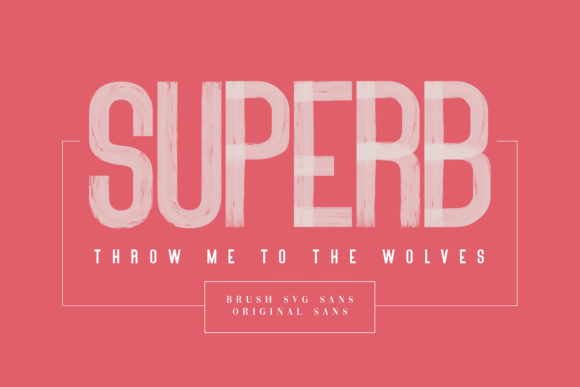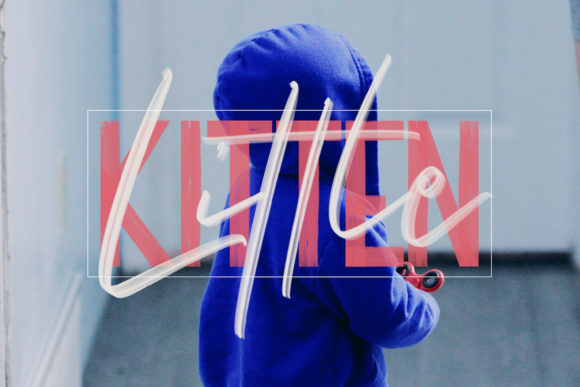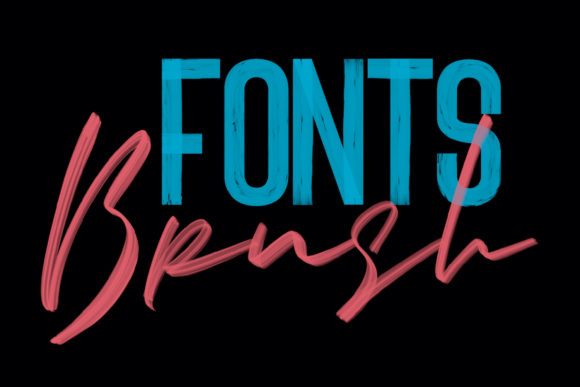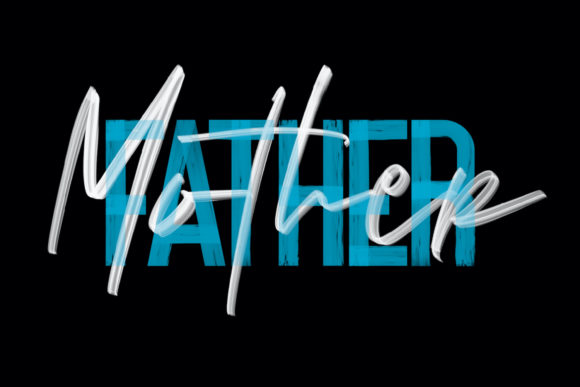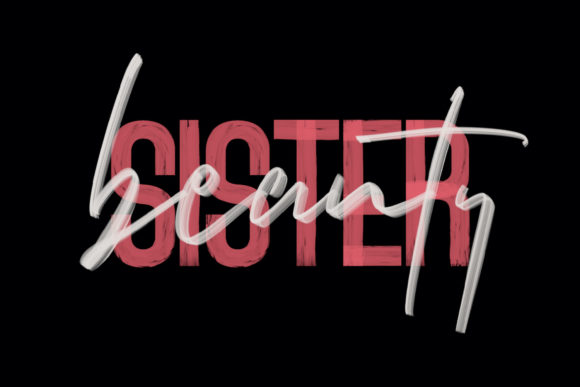
Introducing Brushelly Brush Font: Elevate Your Designs with a Touch of Elegance
In the world of typography, fonts play a crucial role in conveying the tone and personality of a design. For designers and crafters, finding the perfect font can be a daunting task. However, if you’re looking for a versatile and elegant solution, look no further than Brushelly Brush Font. This stunning duo font, consisting of sans and handwritten styles, is created with the help of a brush pen, giving it a unique and organic feel.
The Versatility of Brushelly Brush Font
Brushelly Brush Font is an incredibly versatile font that can be used for a wide range of design projects. Whether you’re working on a logo, branding materials, social media graphics, or even a website, this font is sure to elevate your creations. Its elegant and sophisticated feel makes it perfect for designs that require a touch of refinement, such as:
- Websites and landing pages
- Print materials, such as brochures and flyers
The Unique Characteristics of Brushelly Brush Font
So, what sets Brushelly Brush Font apart from other fonts? Here are a few unique characteristics that make it a standout:
- Brush Pen Effect: The font is created with the help of a brush pen, giving it a distinctive, hand-crafted feel.
- Duo Font: The font comes in two styles: sans and handwritten, allowing you to mix and match to create visually appealing combinations.
- Elegant and Sophisticated: The font has an undeniable elegance and sophistication, making it perfect for designs that require a touch of refinement.
Brushelly Brush Font is a valuable asset for designers and crafters, offering numerous benefits, including:
- Time-Saving: With Brushelly Brush Font, you can create stunning designs in a fraction of the time it would take to create custom lettering.
- Consistency: The font ensures consistency in your designs, giving your brand or project a cohesive look and feel.
- Flexibility: The duo font style allows you to experiment with different combinations, ensuring your designs always look fresh and unique.
Tips for Using Brushelly Brush Font
To get the most out of Brushelly Brush Font, here are a few tips:
- Experiment with Pairings: Try pairing the sans and handwritten styles to create visually appealing combinations.
- Play with Sizes: Experiment with different font sizes to create visual hierarchy and add depth to your designs.
- Add Texture and Patterns: Add texture and patterns to your designs to give them an extra layer of interest and personality.
In conclusion, Brushelly Brush Font is an exceptional addition to any designer’s or crafter’s font library. Its unique blend of elegance, sophistication, and versatility makes it perfect for a wide range of design projects. Whether you’re looking to create stunning logos, social media graphics, or websites, Brushelly Brush Font is sure to elevate your creations and help you stand out from the crowd.